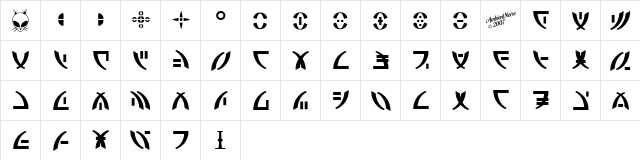
| Designer | AmbientNoise 鲰07 |
Design Context for PACL Typeface
PACL is a composed and adaptable typeface that performs quietly and consistently across a wide range of design contexts.